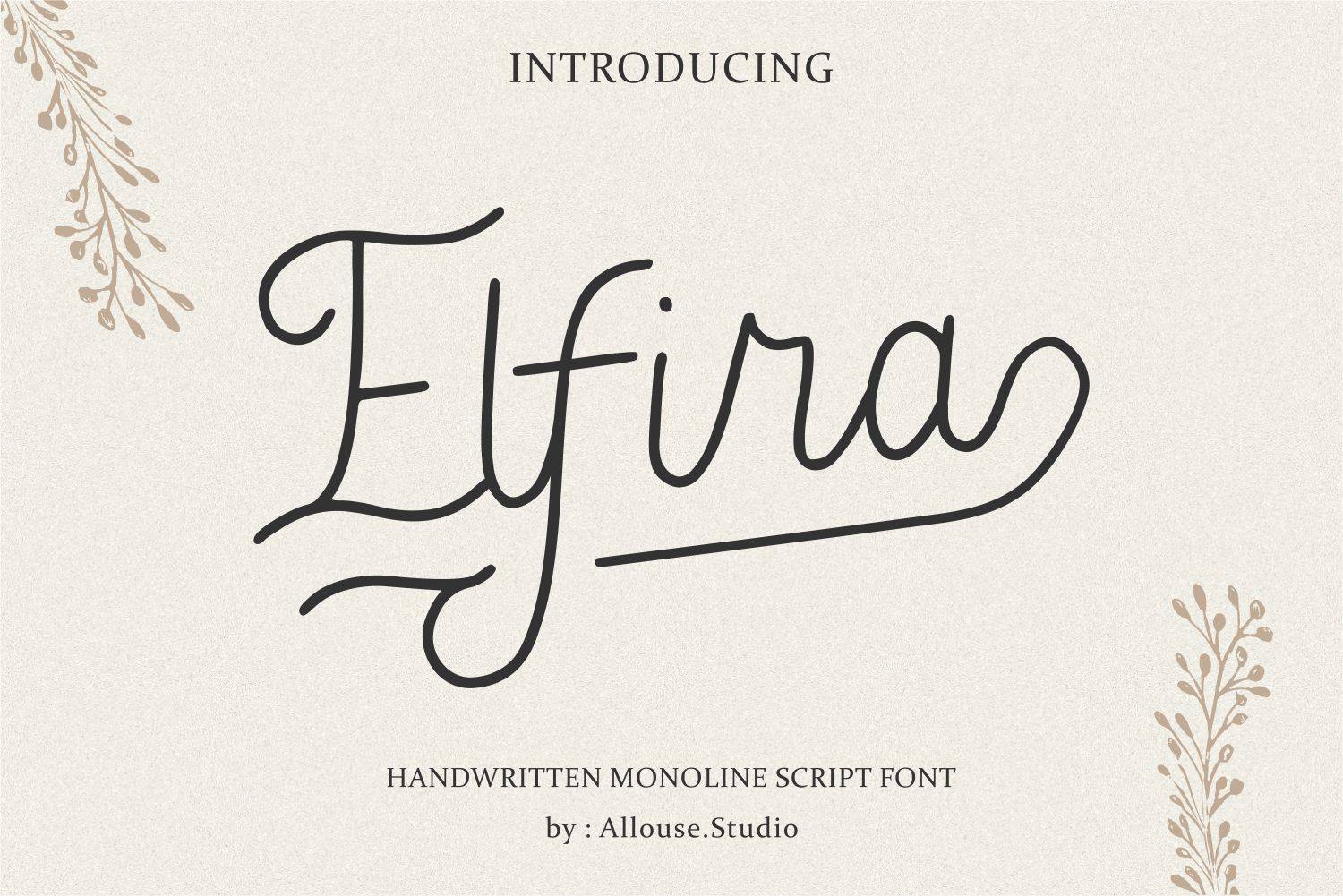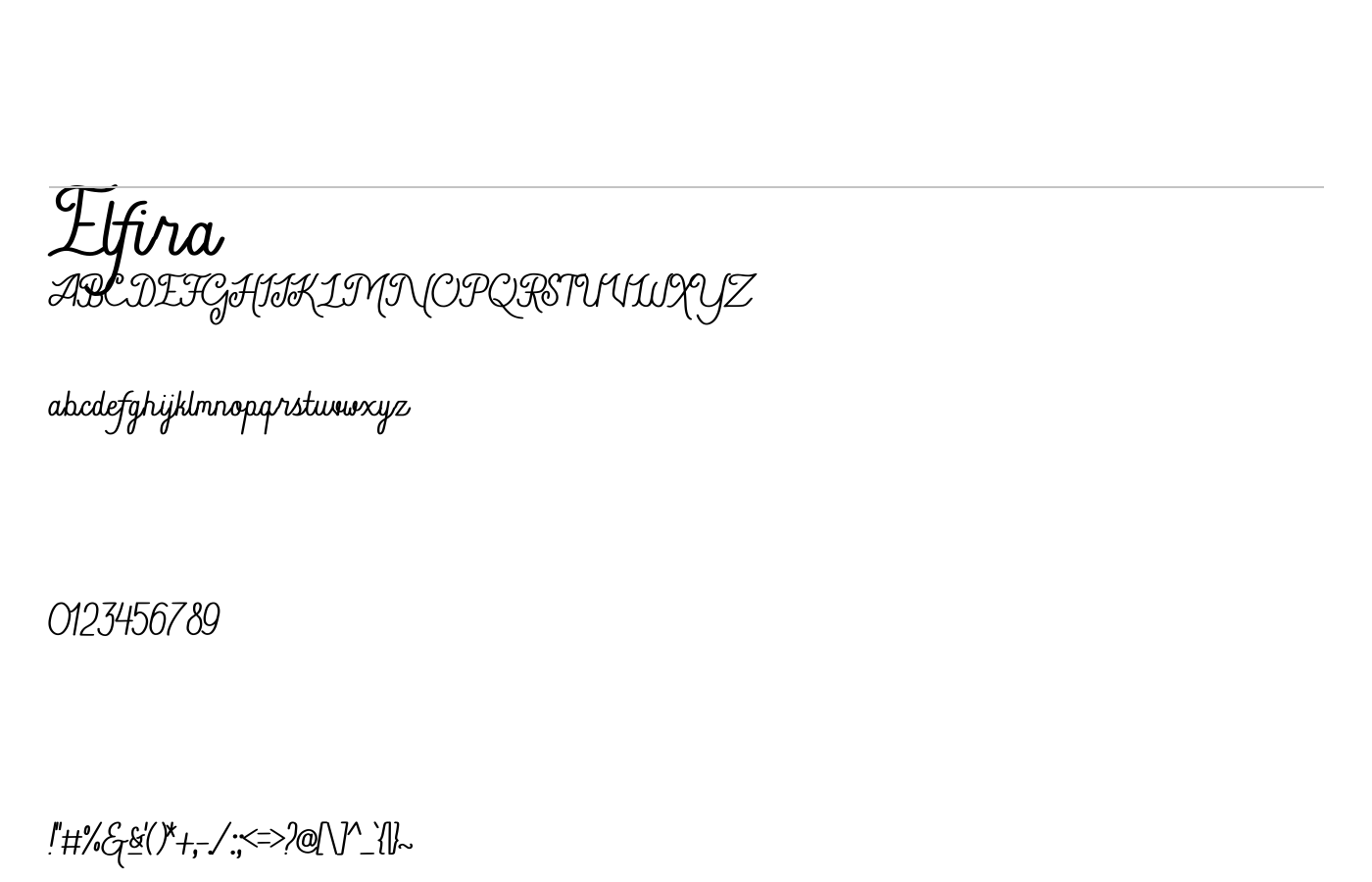
Elfira is a delicate and elegant script font with a slender, graceful style that exudes charm and sophistication. Its smooth, flowing lines and refined letterforms create a sense of lightness and femininity, making it ideal for invitations, branding, and designs that require a touch of romance or elegance. This font works beautifully in headlines and decorative text where a stylish, handwritten look is desired.
Elfira Font
About Elfira Font